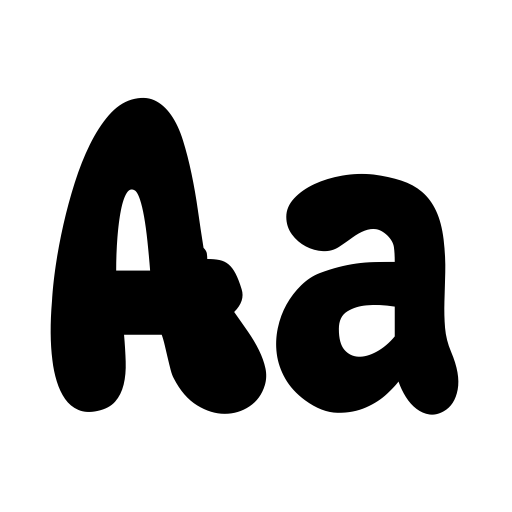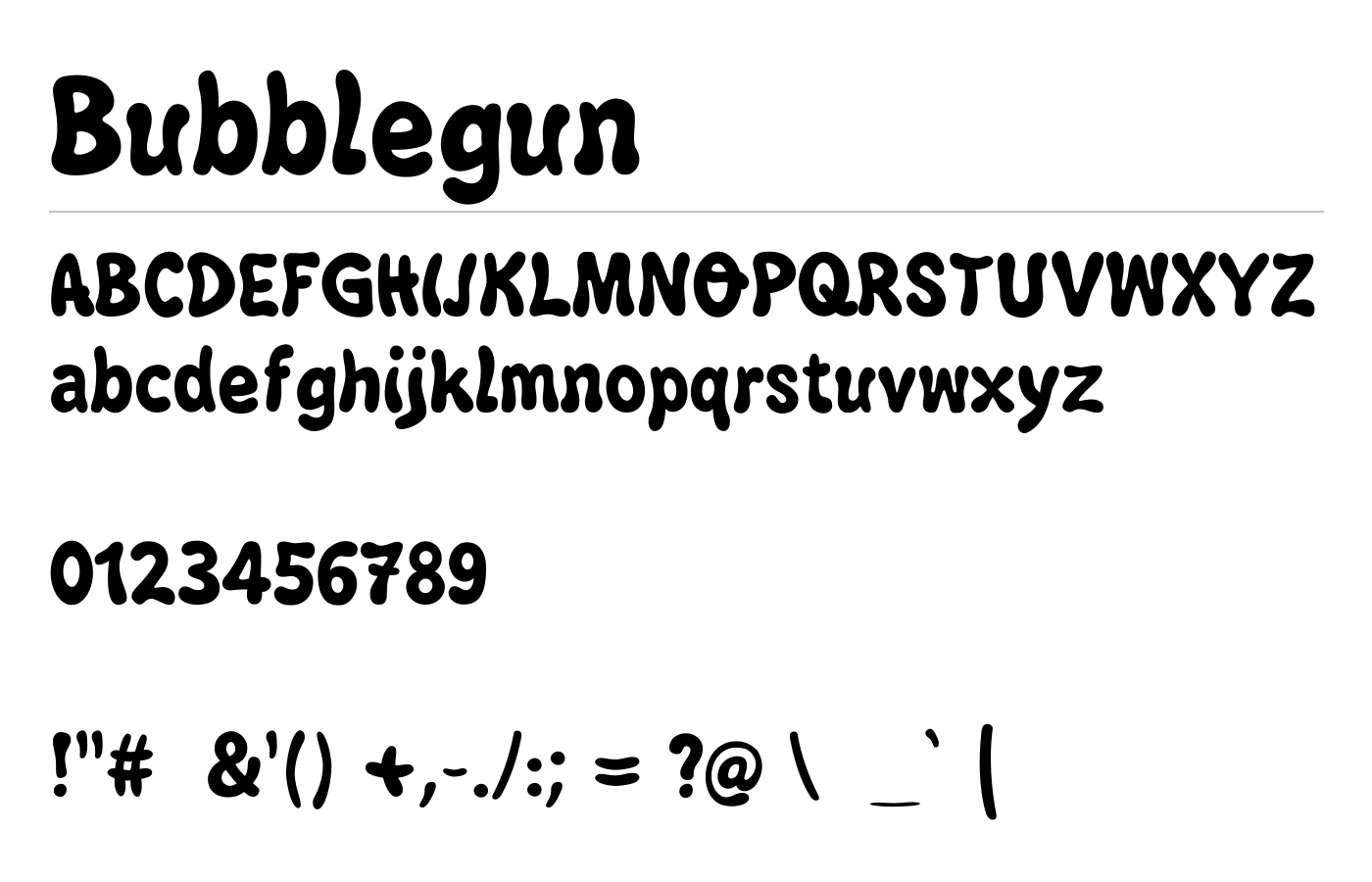
Bubblegun is a playful, rounded sans serif font with a bold weight and soft, bubbly forms that create a fun and friendly vibe. Its wide letterforms and casual, hand-drawn style make it ideal for children’s designs, informal branding, and lively headlines where approachable and cheerful expression is key. This font works best in creative projects, posters, and packaging that aim to feel inviting and lighthearted.
Bubblegun Font
About Bubblegun Font